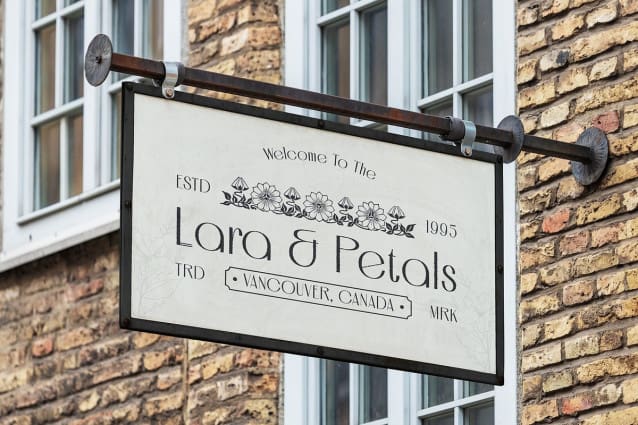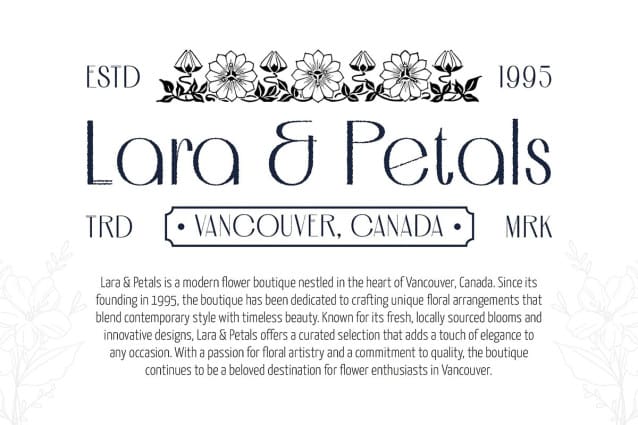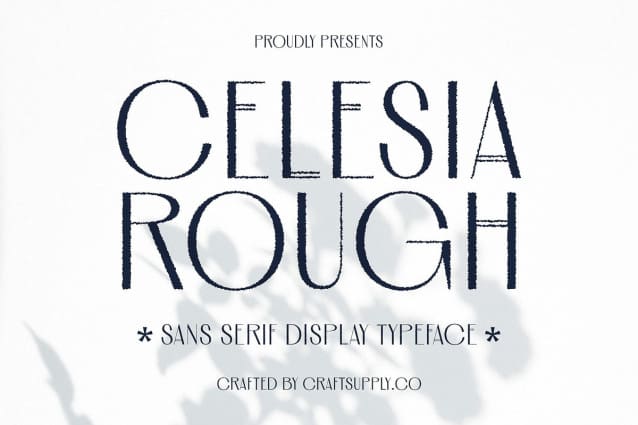
Celesia Rough Font
Celesia Rough Font is a modern sans serif font that perfectly blends minimalist, geometric forms with a textured, rugged finish. Its clean lines and bold structure make it stand out, while the raw texture adds a unique, organic touch that enhances its versatility. This striking combination creates a contemporary yet rough-edged look, ideal for designs that need to communicate strength, resilience, and modernity.
Bold Geometric Shapes for Maximum Visual Impact The bold, geometric shapes of Celesia Rough ensure a strong visual impact in any design. Its sharp, well-defined letterforms convey authority and precision, giving your project a modern and assertive presence. Whether used for headlines, titles, or branding, the boldness of this font guarantees visibility and attention, making it perfect for projects that need to stand out.
Rough Texture Adds Depth and Character Celesia Rough’s distinctive textured finish gives it an added layer of depth, making the font appear more dynamic and full of character. The rough texture contrasts with its geometric structure, softening the harshness of the lines while maintaining a rugged aesthetic. This feature adds a raw, industrial feel that works well in designs looking to convey authenticity, grit, and toughness, such as in branding, packaging, or creative editorial layouts.